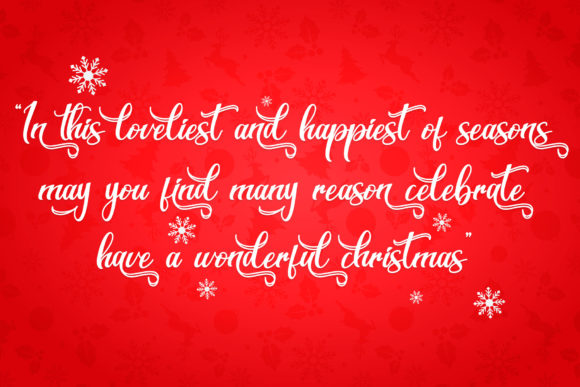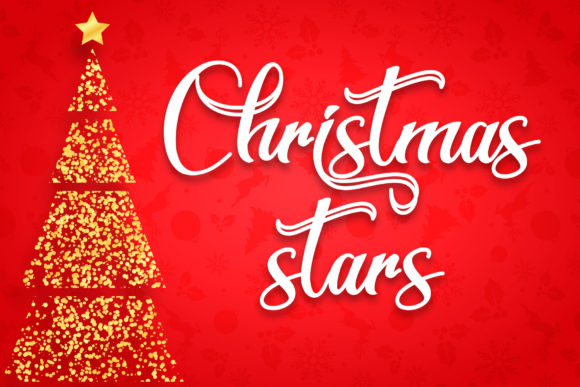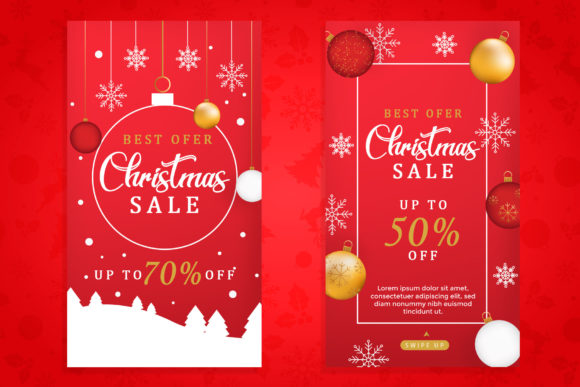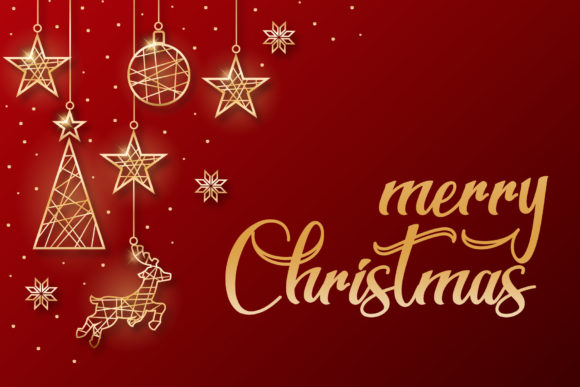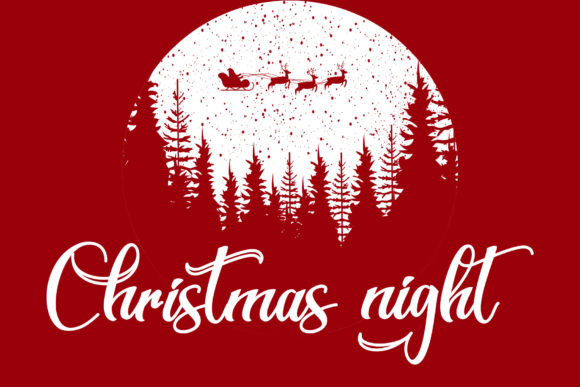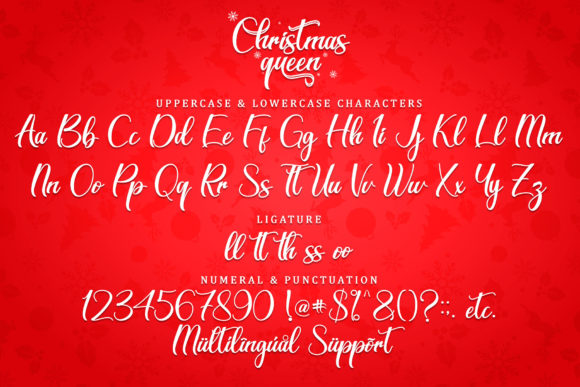
Introduction to Christmas Queen Font
Christmas Queen is a dazzling script font.
This font is neatly crafted and highly detailed Whatever the topic, Christmas Queen will be a wonderful asset to your font library, as it has the potential to enhance any creation.
Key Features of Christmas Queen Font